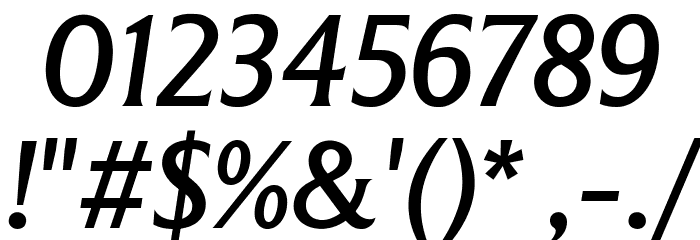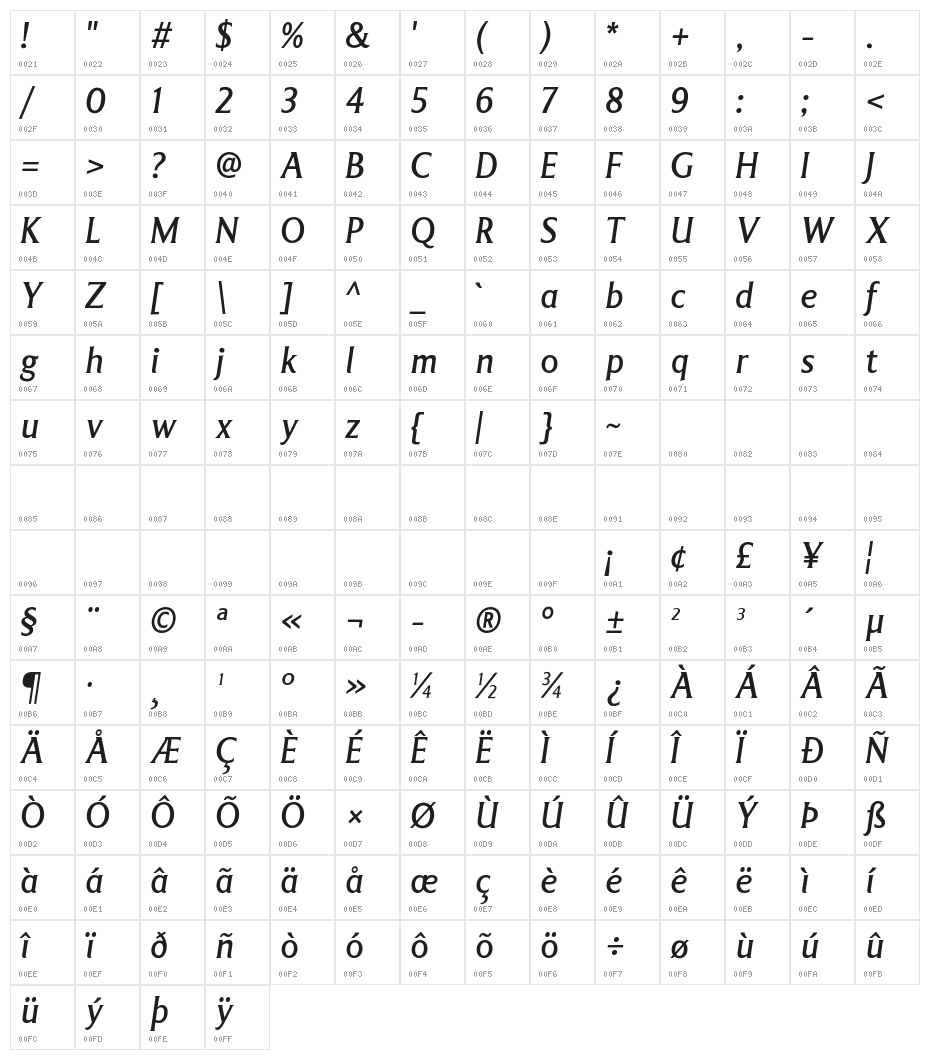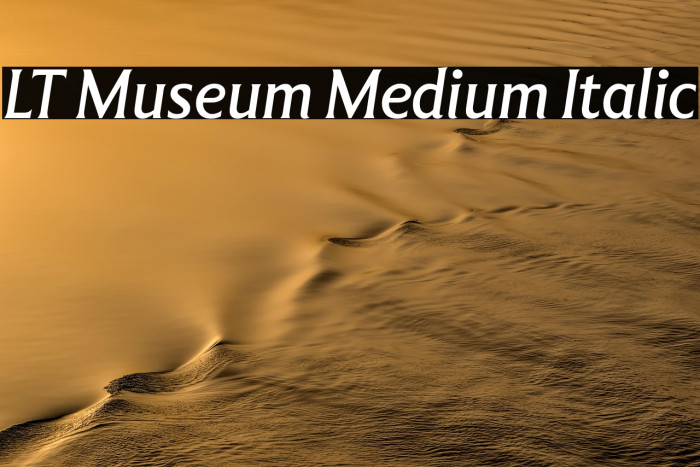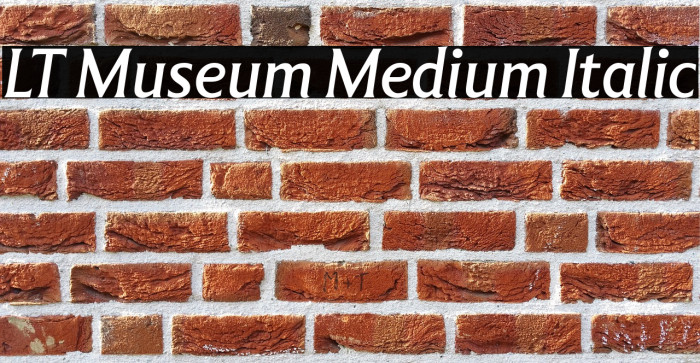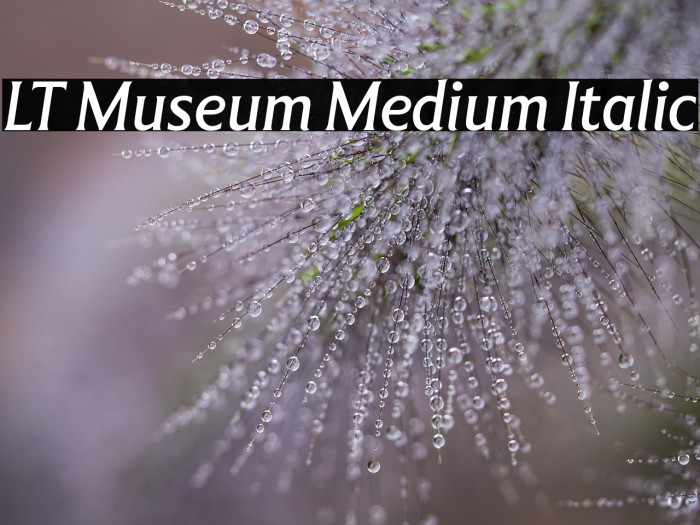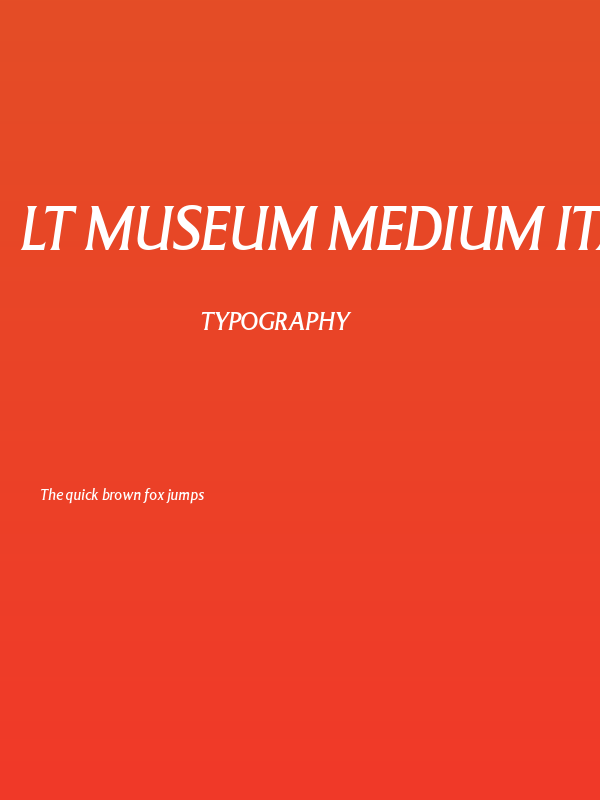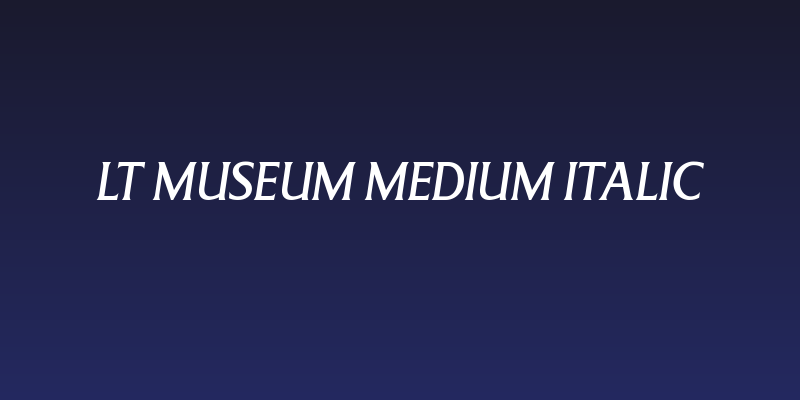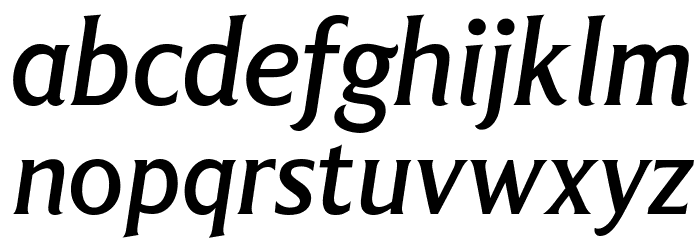
LT Museum Medium Italic Font
LT Museum Medium Italic Description
This font exhibits a classic serif style with a medium weight and italicized form. The characters are elegantly slanted, providing a sense of motion and sophistication. The serifs are pronounced yet refined, contributing to a traditional and timeless appearance. The uppercase letters are bold and commanding, while the lowercase letters maintain a graceful flow. Numerals are clear and distinct, ensuring readability. Special characters are well-integrated, maintaining the overall aesthetic. This font is versatile, suitable for both formal and creative applications.